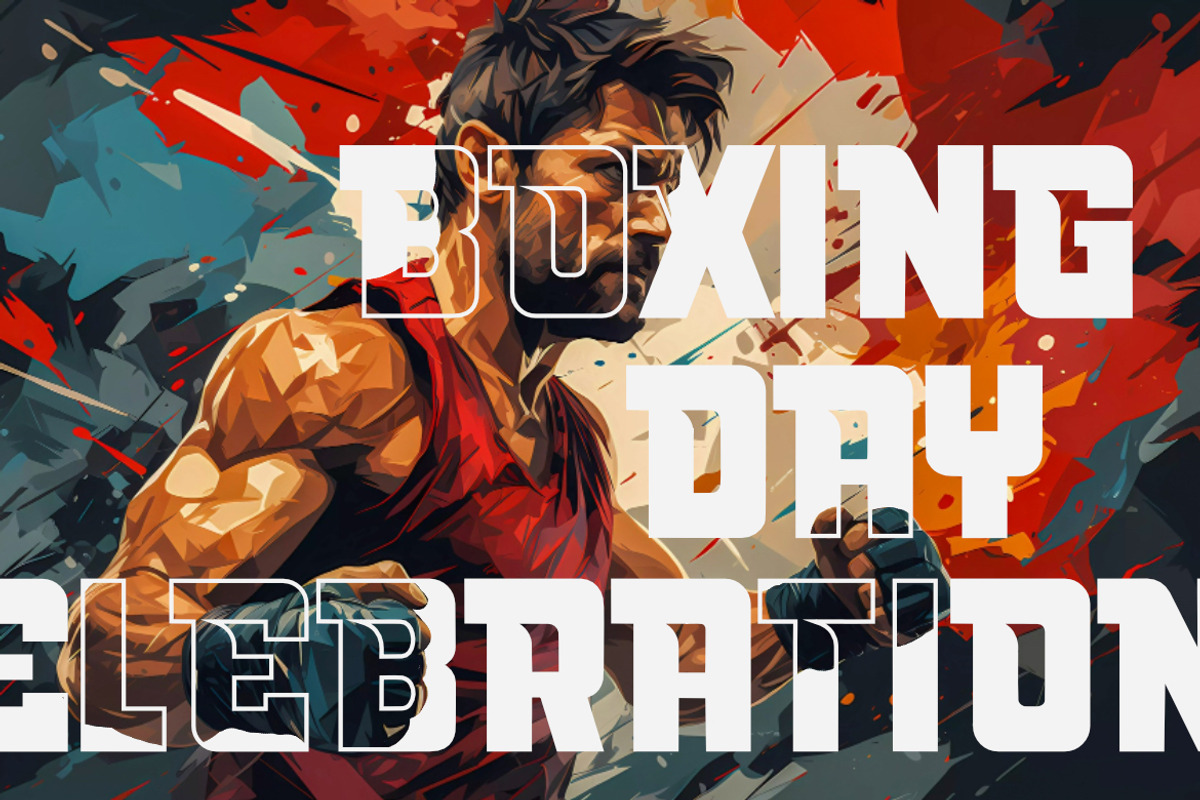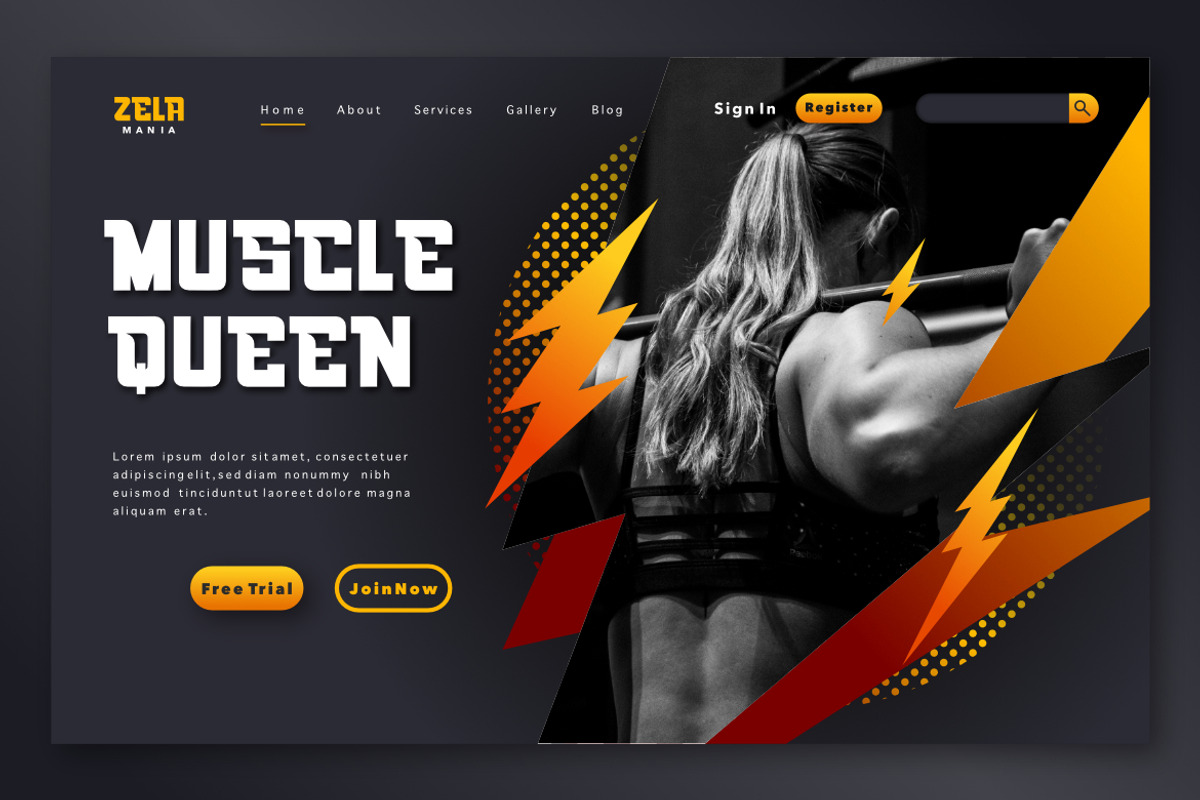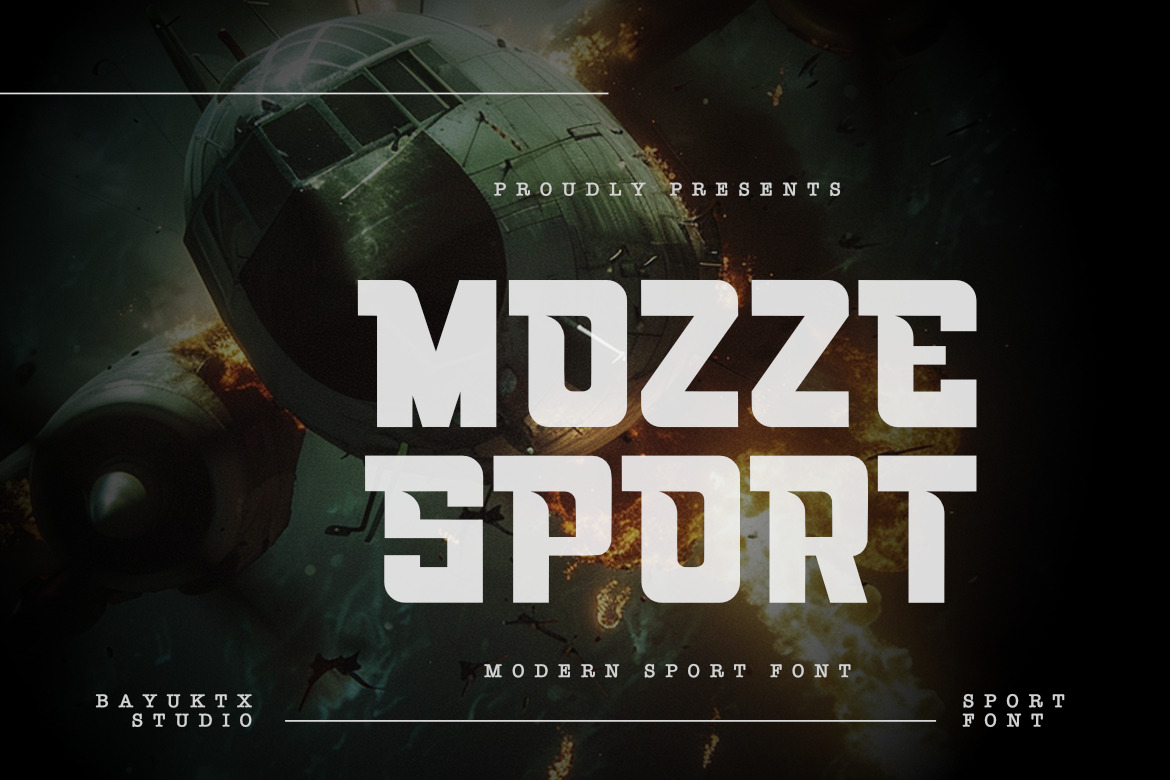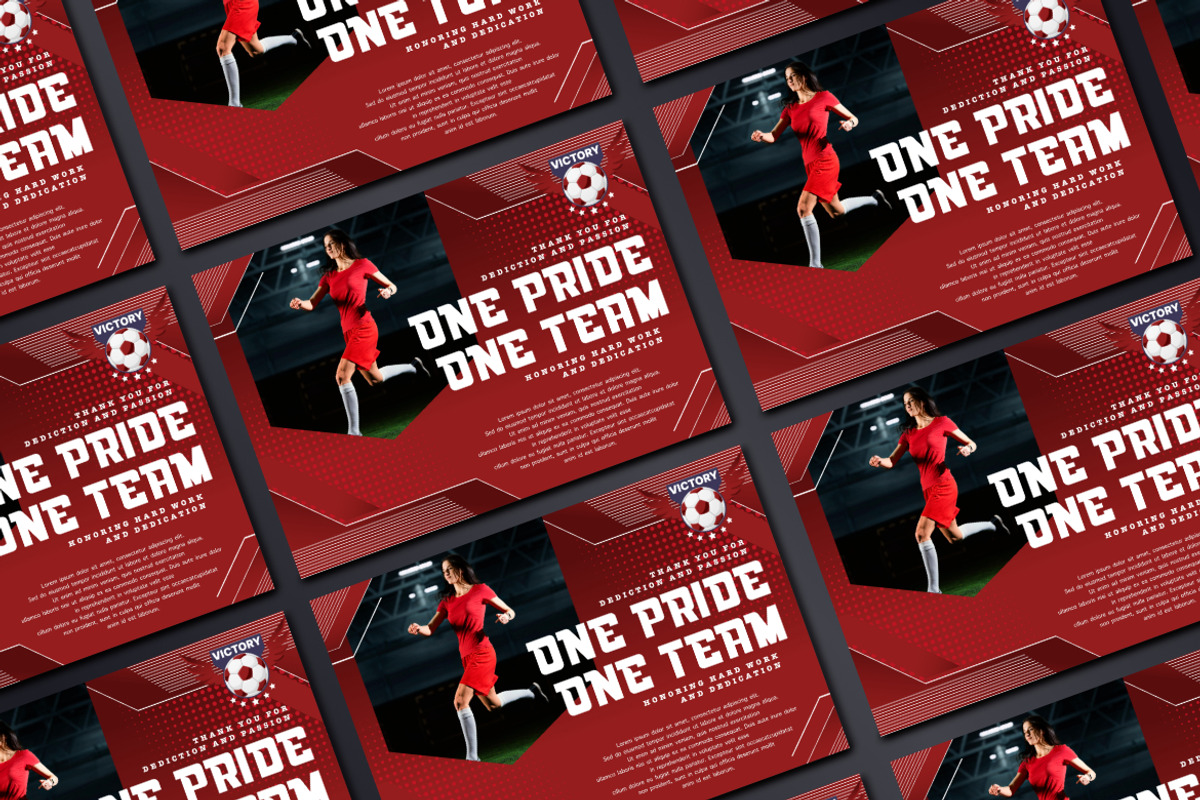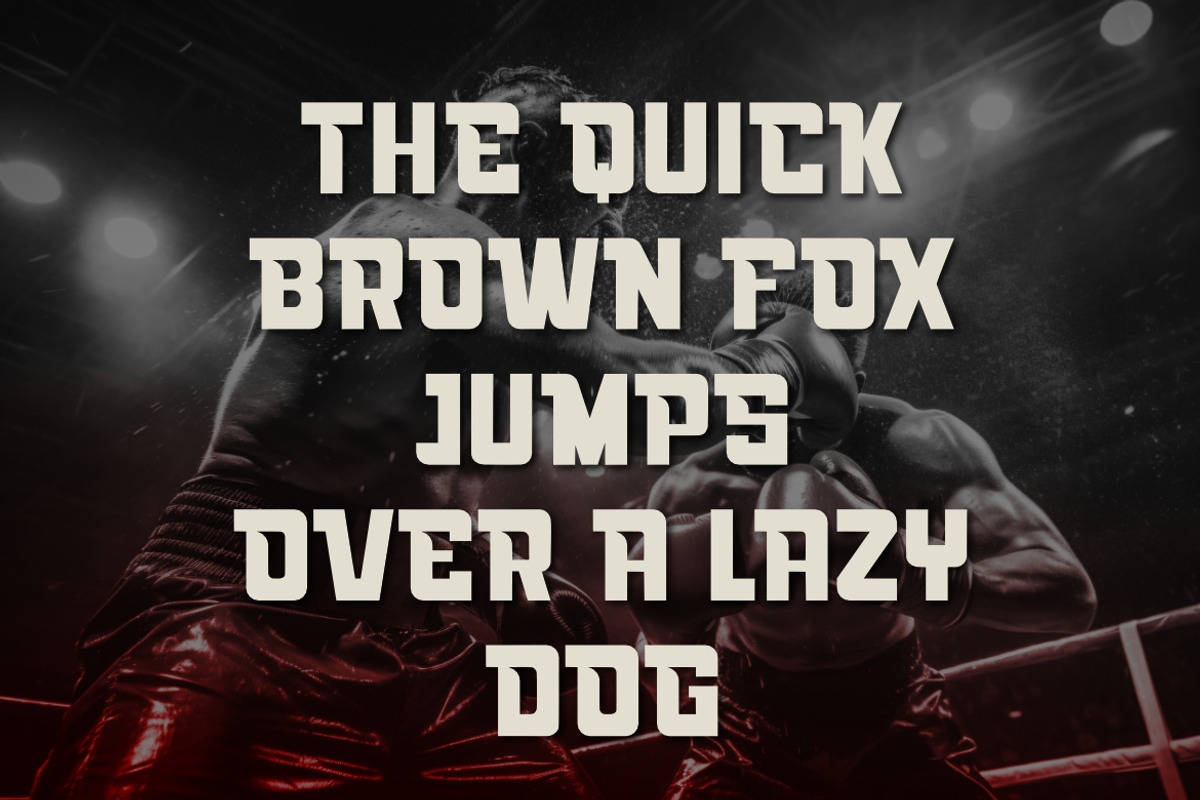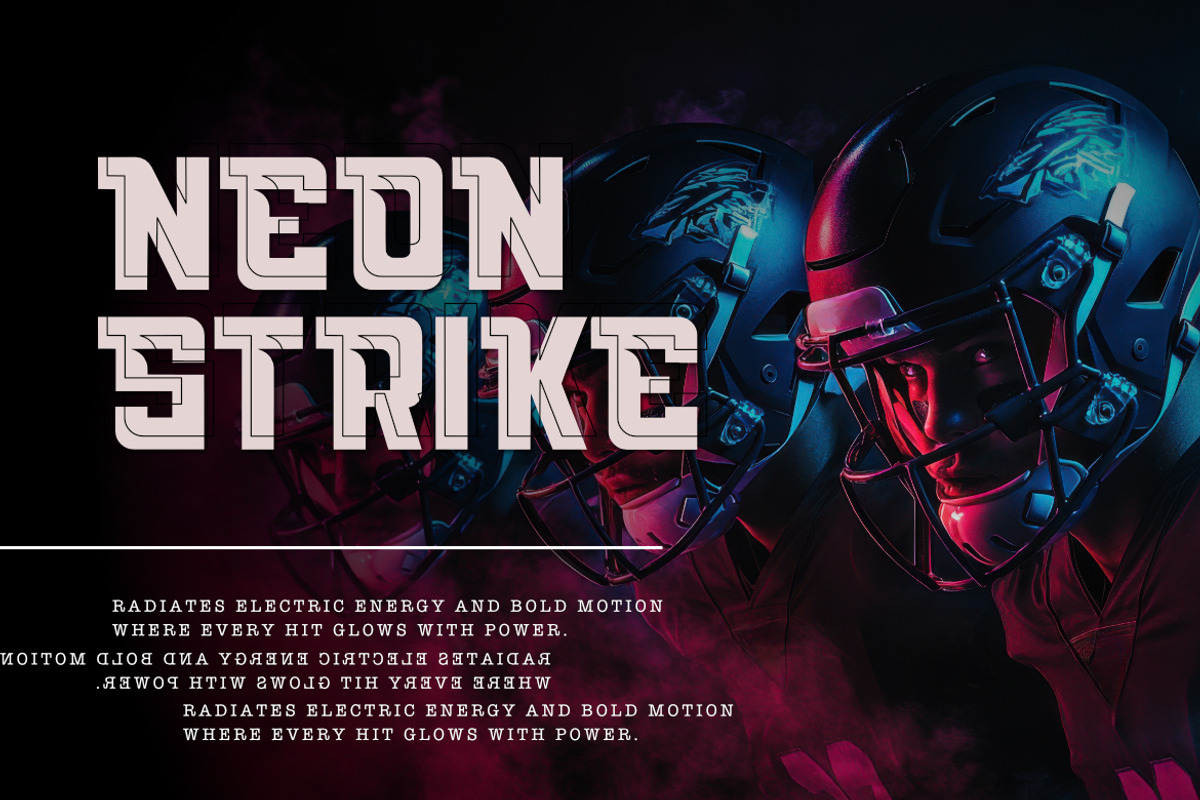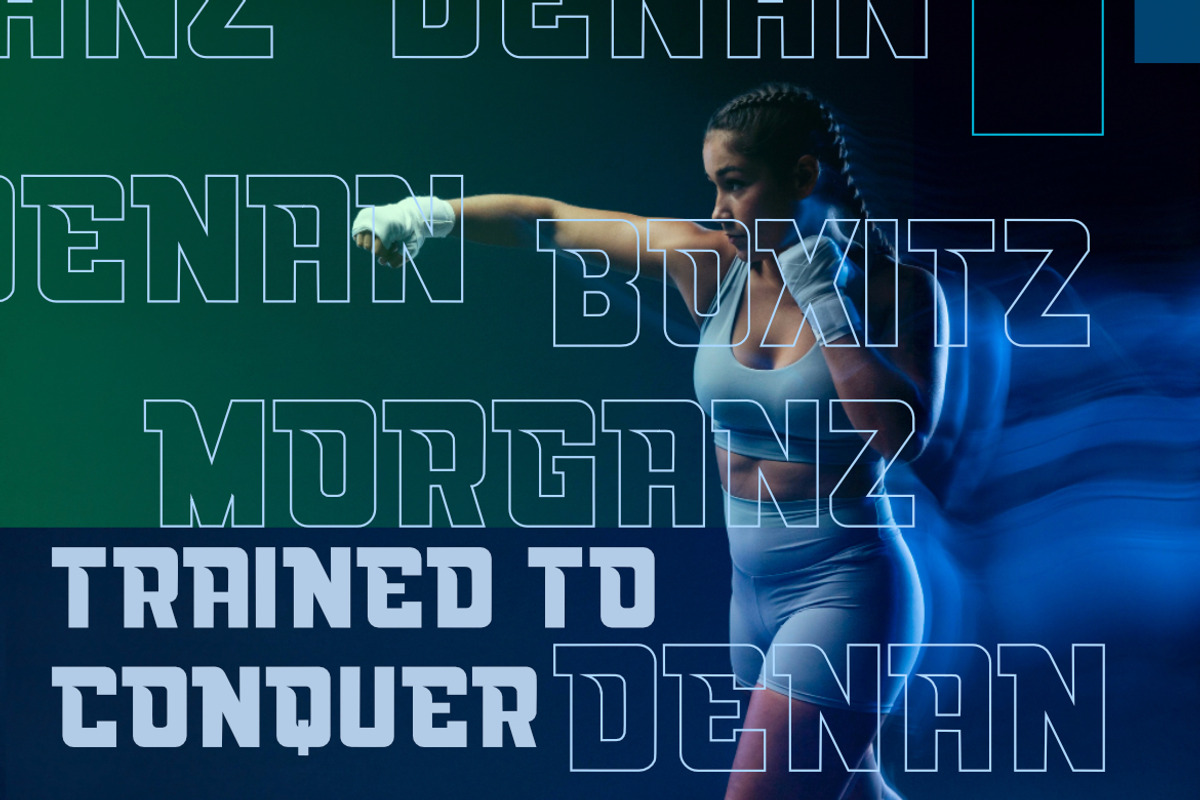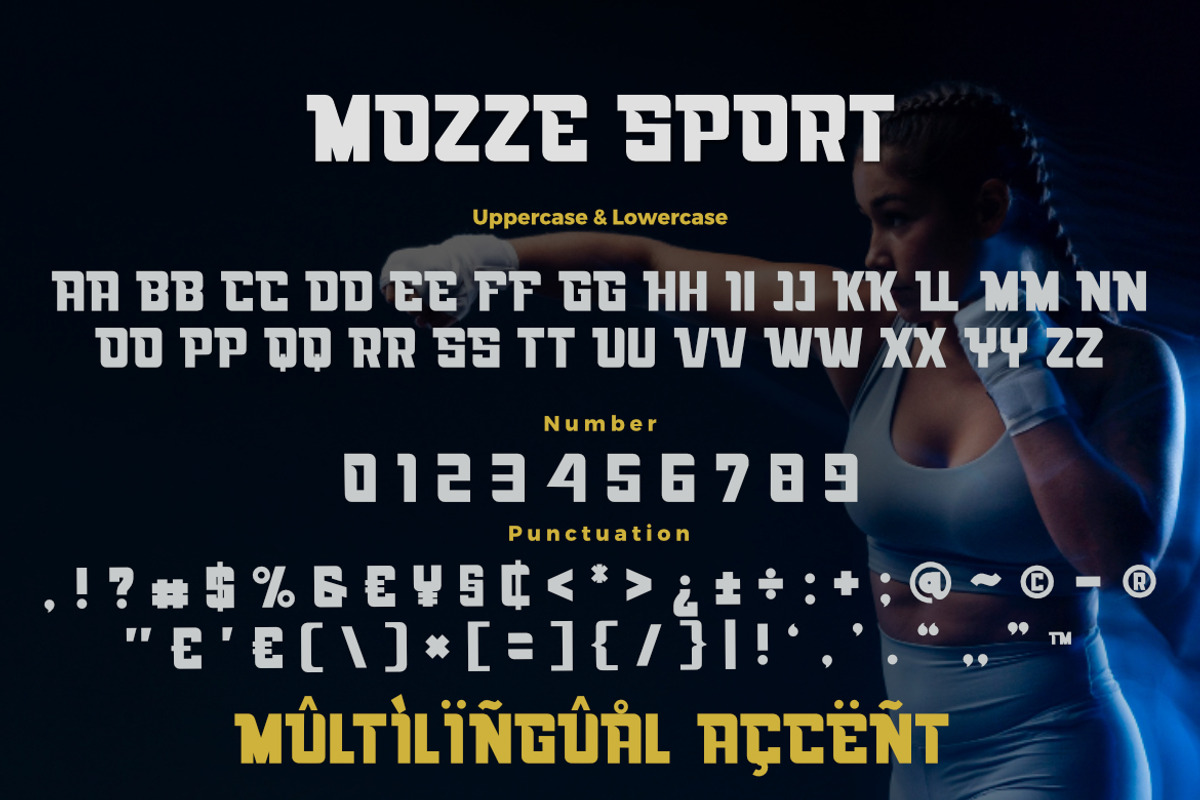
Mozze Sport - Strength Display Font
Mozze Sport — Modern Strength Display Font
Mozze Sport Font embodies raw energy, precision, and competitive motion. Designed with a bold geometric structure and modern athletic style, it delivers power in every letter — perfect for visuals that demand strength, speed, and dominance.
Every curve and cut reflects determination and discipline, bringing a sense of victory to your design. From esports titles to gym merchandise, Mozze Sport radiates confidence and adrenaline, transforming words into unstoppable impact.
Whether used for logos, posters, merchandise, or motivational branding, this font gives your design the dynamic force of modern competition — fearless, fast, and built to win.
Suitable For :
- Sport & Fitness Branding
- Esport Logos & Team Identity
- Gym Posters & Merchandise Design
- Motivational Quotes & Banners
- Action Titles & Dynamic Typography
With Mozze Sport Font, your design becomes a statement of motion — strong, sleek, and unstoppable.